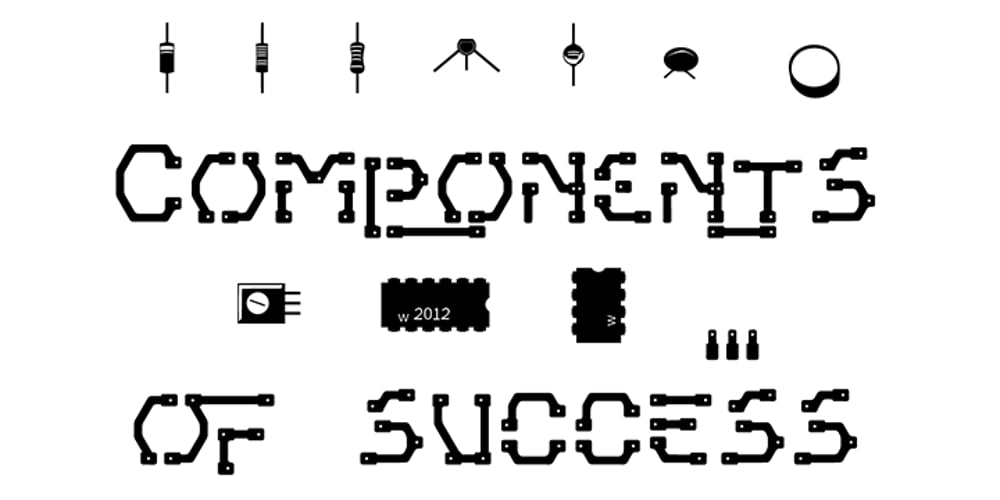
WL Circuits Circuits
WL Circuits font
WL Circuits Font Family was designed by Samuel Goldstein and published by Writ Large. WL Circuits contains 1 styles and family package options. This decorative tech typeface is inspired by the printed circuits boards of the twentieth century. Its default character set suggests commercially manufactured circuits while the OpenType alternates give more of a home-brew feel. The font is ideal for technical decorative titles in subjects as diverse as computers, techno music, ham radio, or “maker”-culture communications. It works well in large-type posters, logotypes, video games, album covers, or advertising. The OpenType font contains nearly 100 discretionary ligatures to give a varied appearance, along with several alternate cuts of common characters and ten electrical components (accessible as OpenType stylistic alternates).